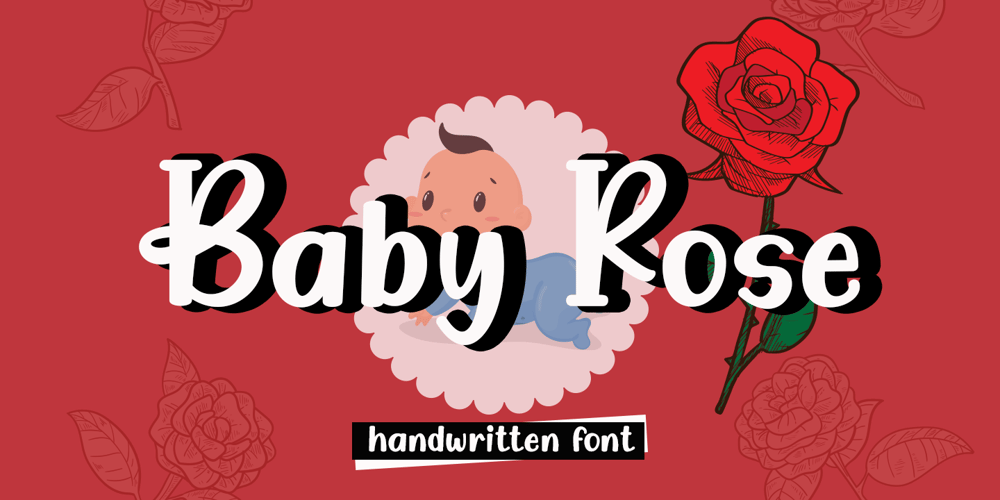
Baby Rose
Baby Rose font
Baby Rose Font Family was designed by Arief Tri Sulistiyono and published by Supersemarletter. Baby Rose contains 1 styles and family package options. Baby Rose is a cute yet daring display font. Get creative with its childlike playfulness, and use it to brighten up any kids and school project! Honestly it works perfectly for headlines, logos, posters, packaging, T-shirts and much more.Font Features :• Regular version• Character set A-Z in uppercase and lowercase• Numerals & Punctuation• Accented Characters• Multiple Languages SupportedRecommended to use in Adobe Illustrator or Adobe Photoshop with opentype feature.If you have questions, just send me a message and I’m glad to help.Best Regards,Supersemar Letter